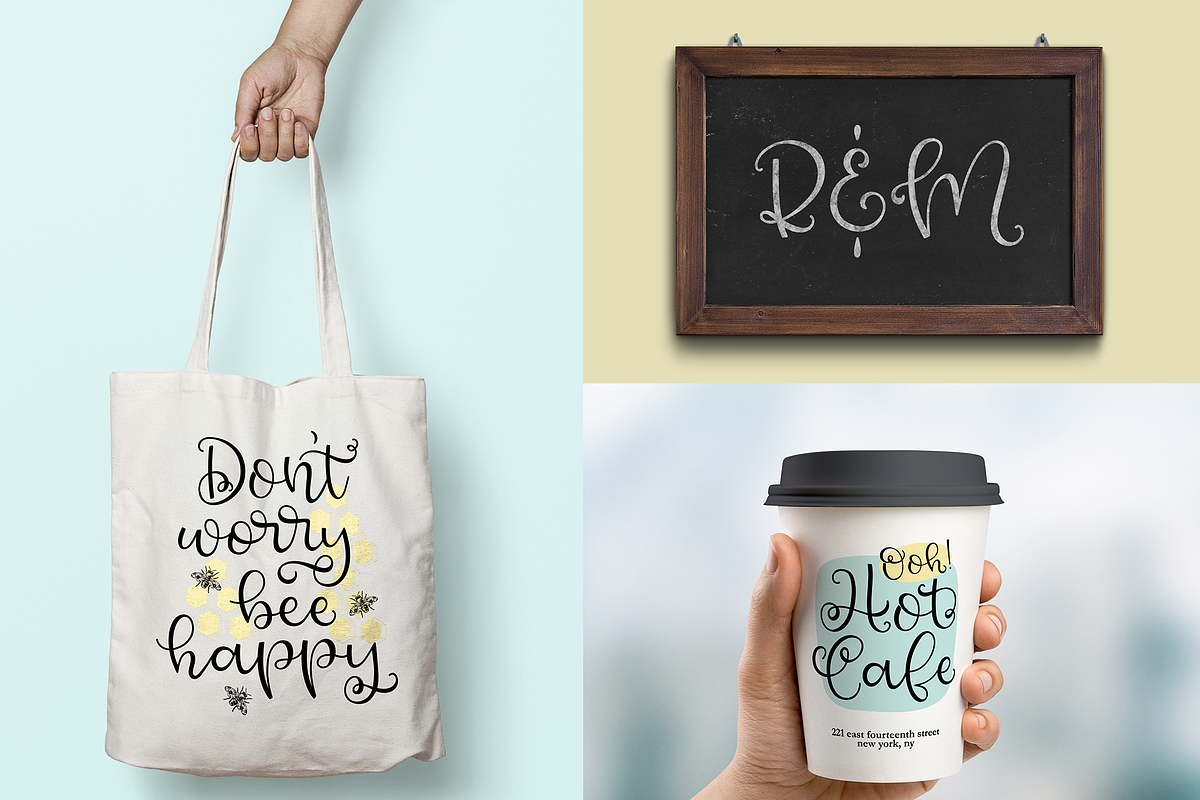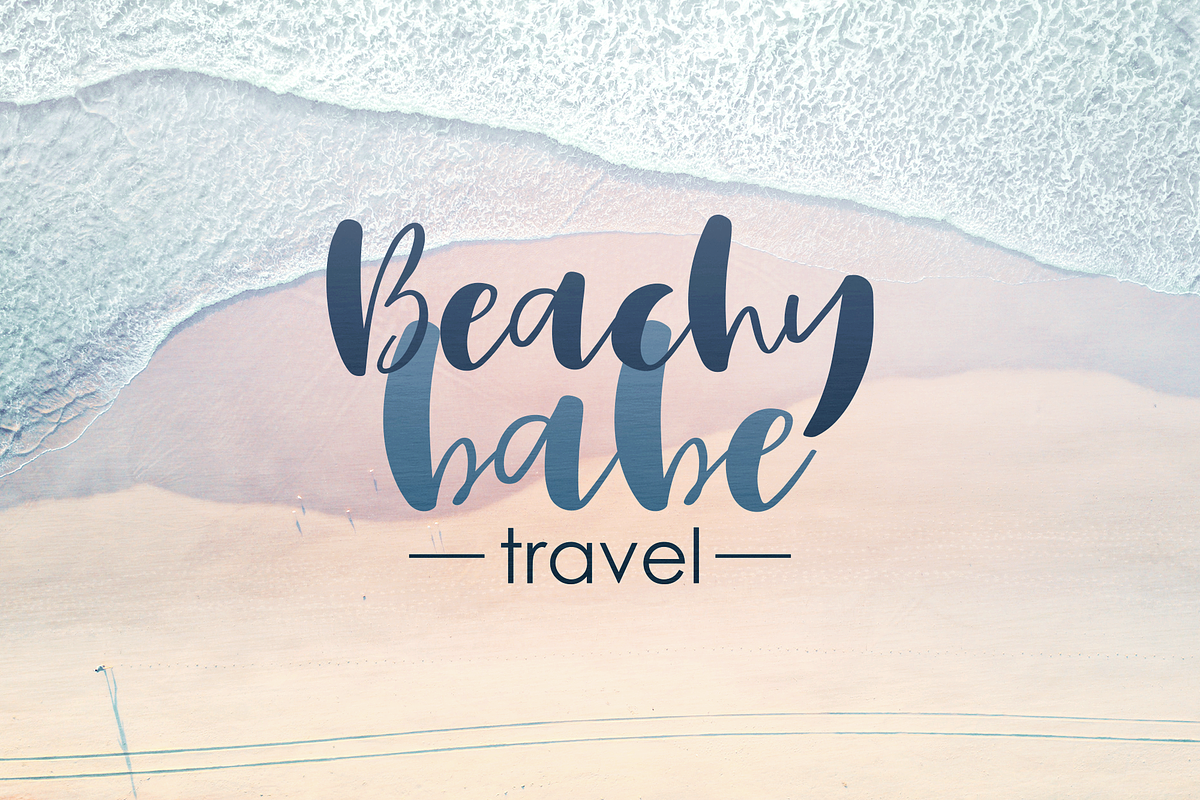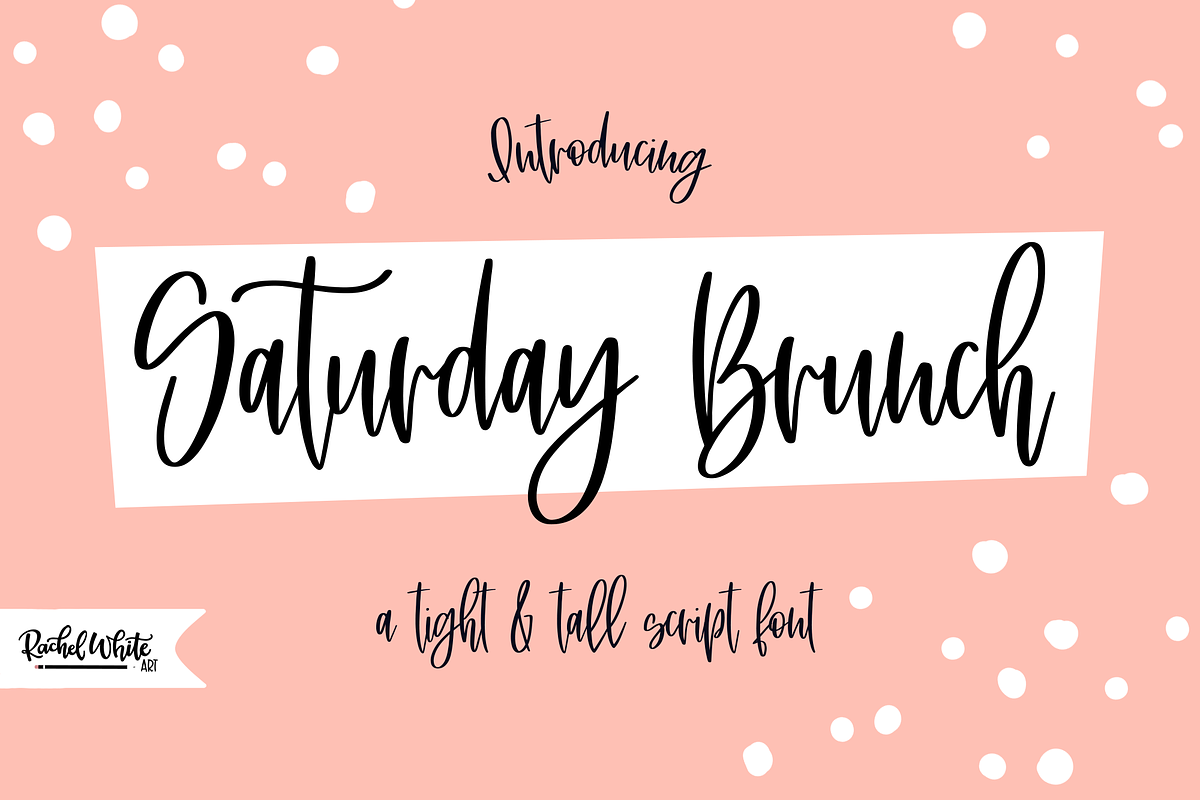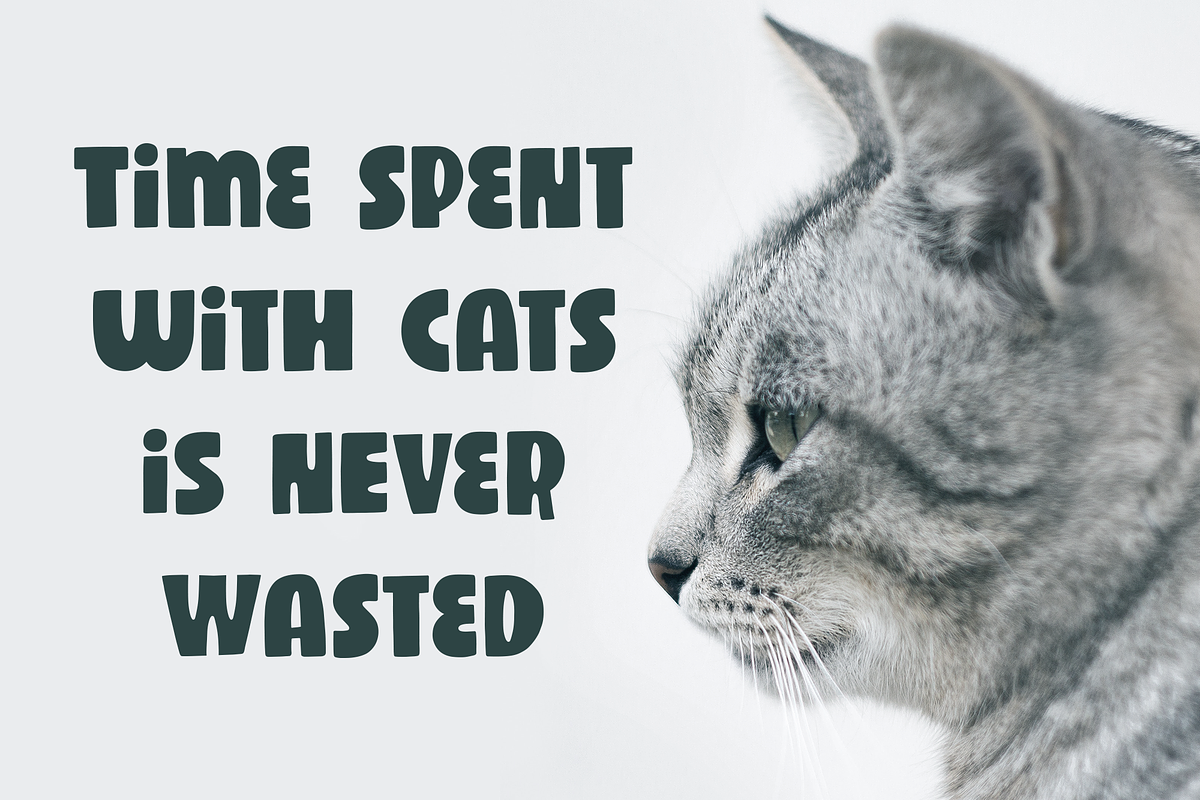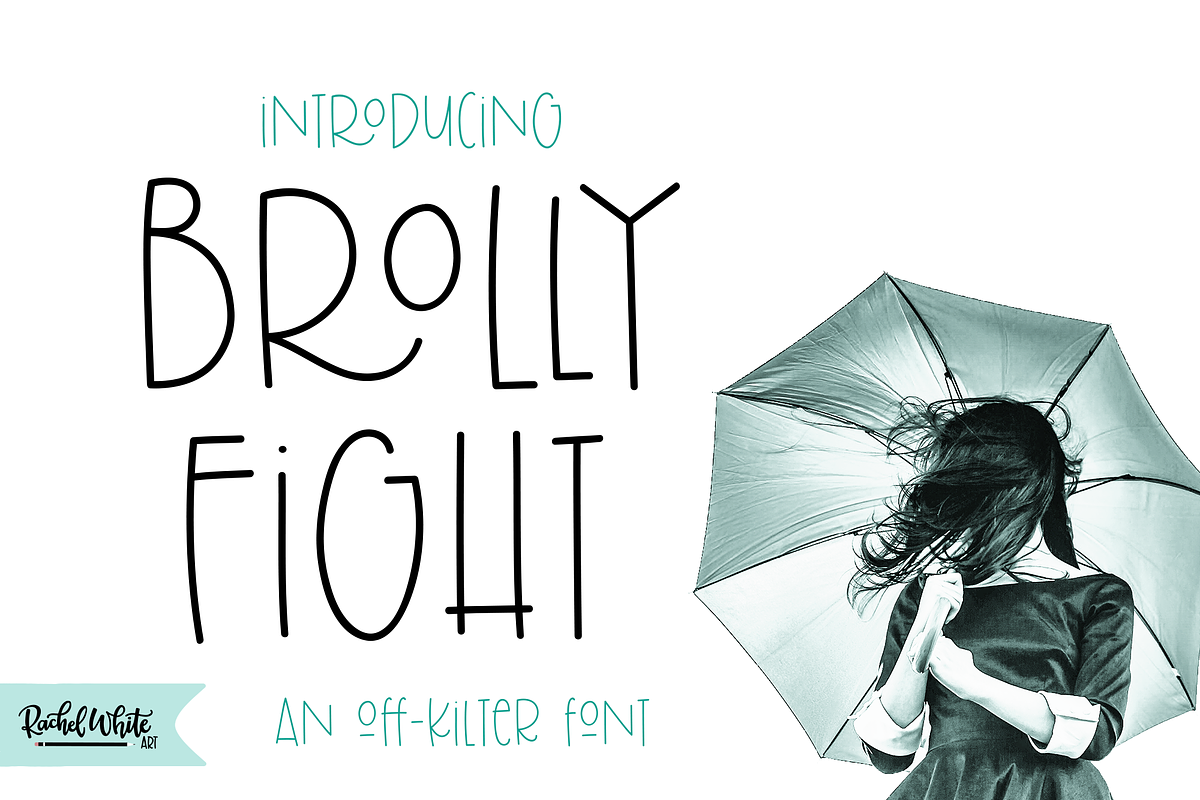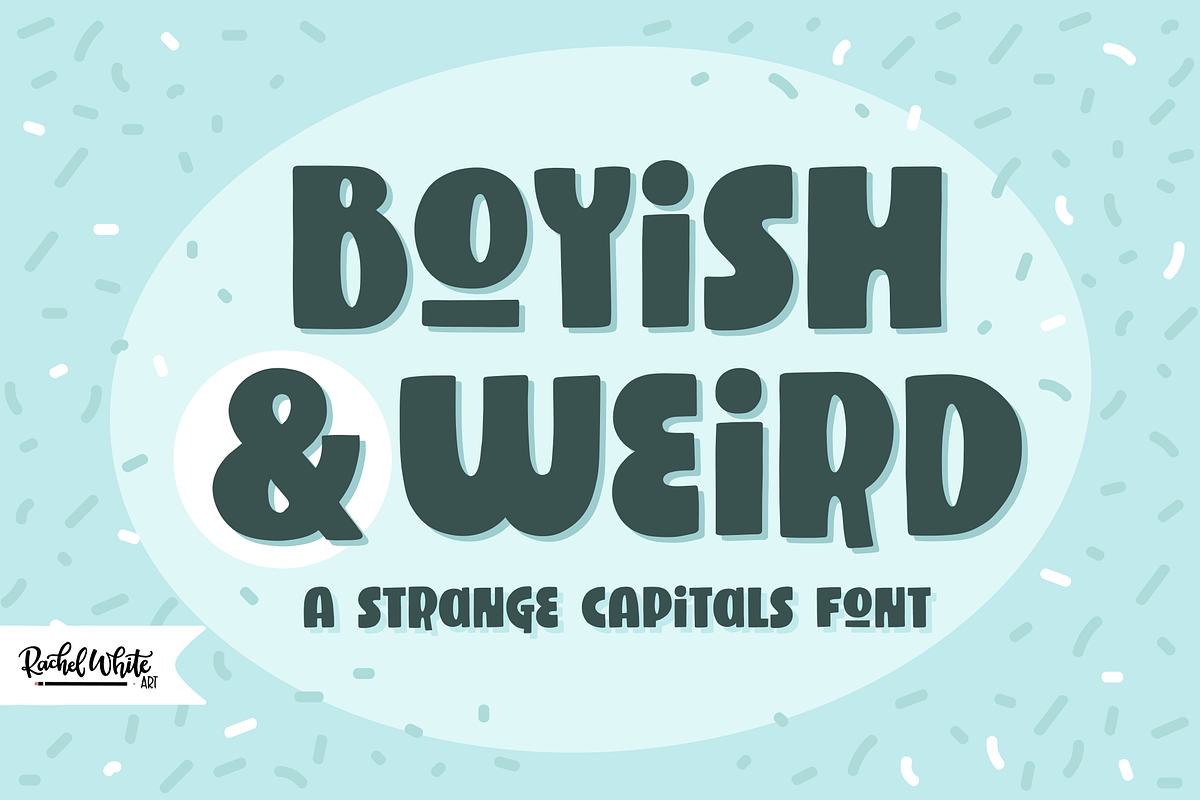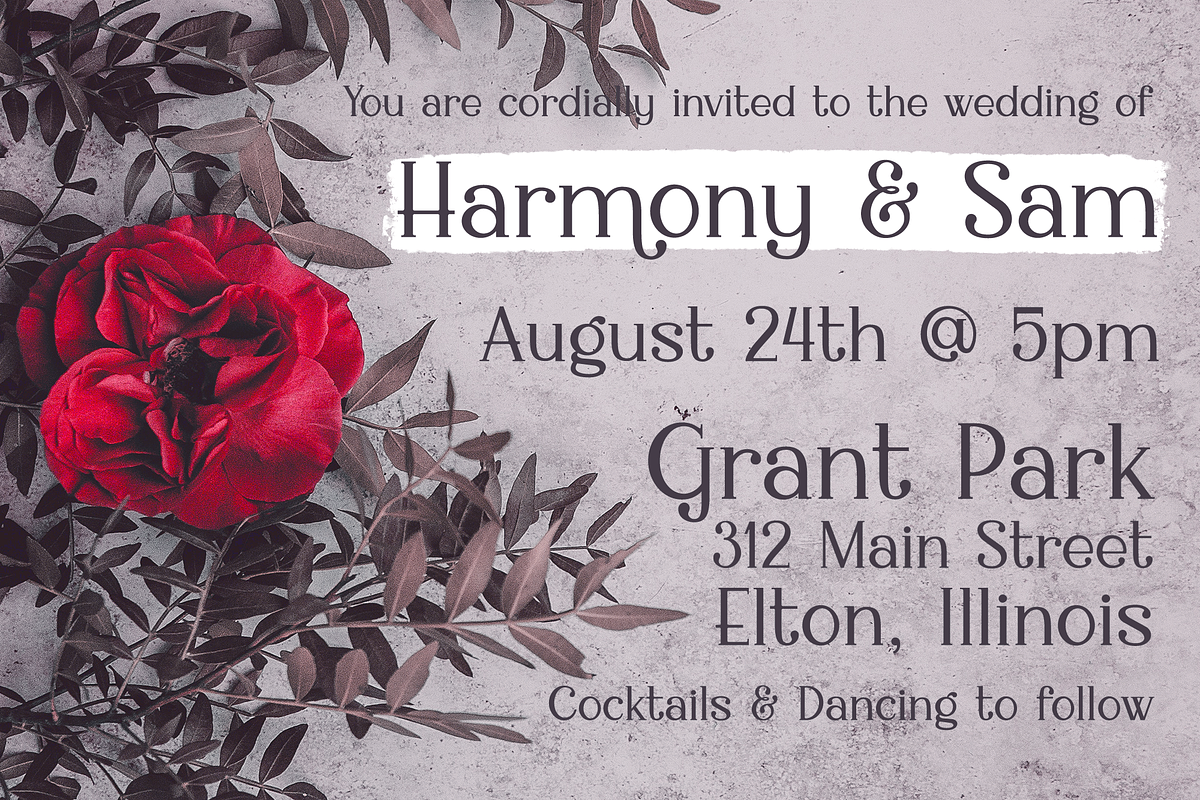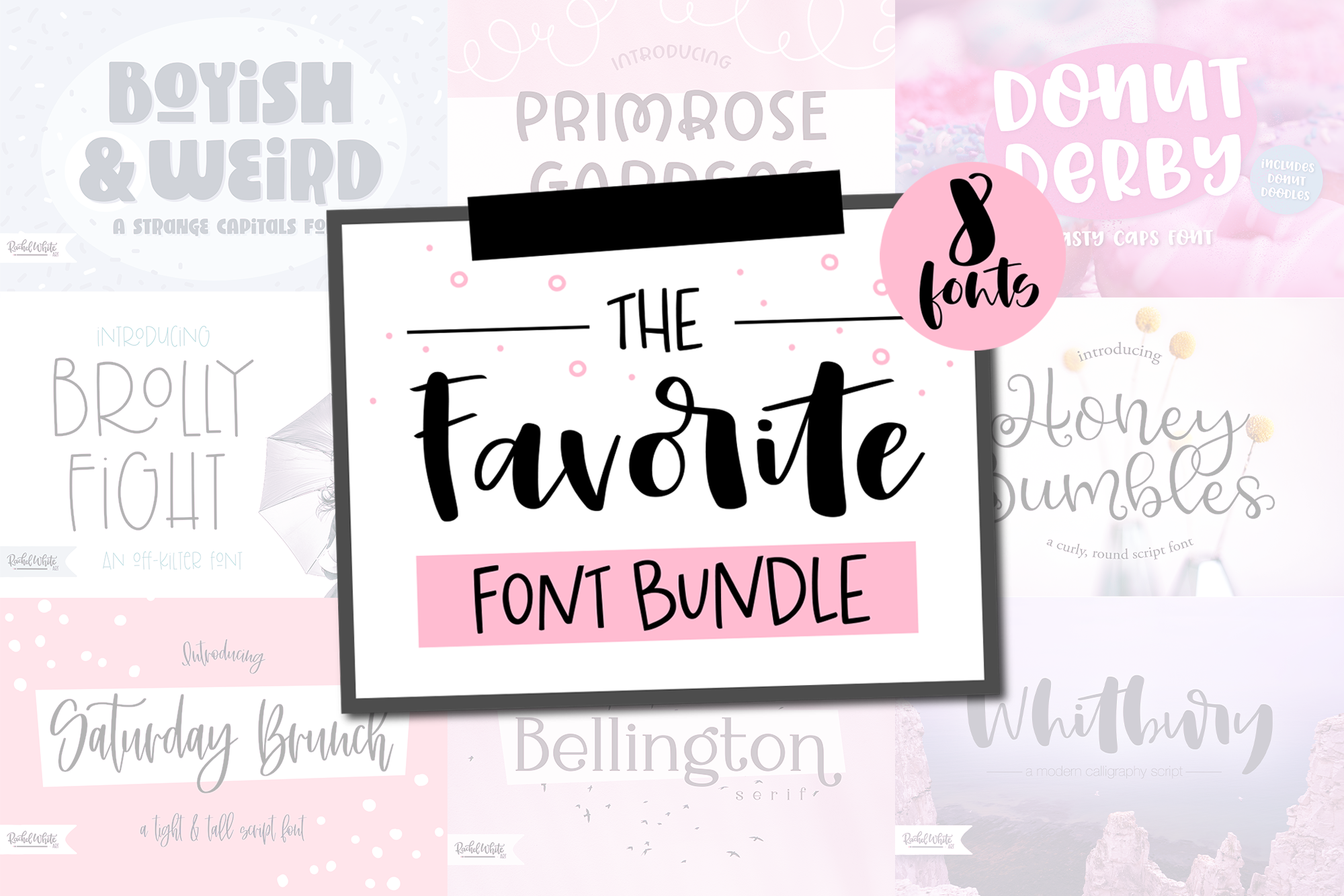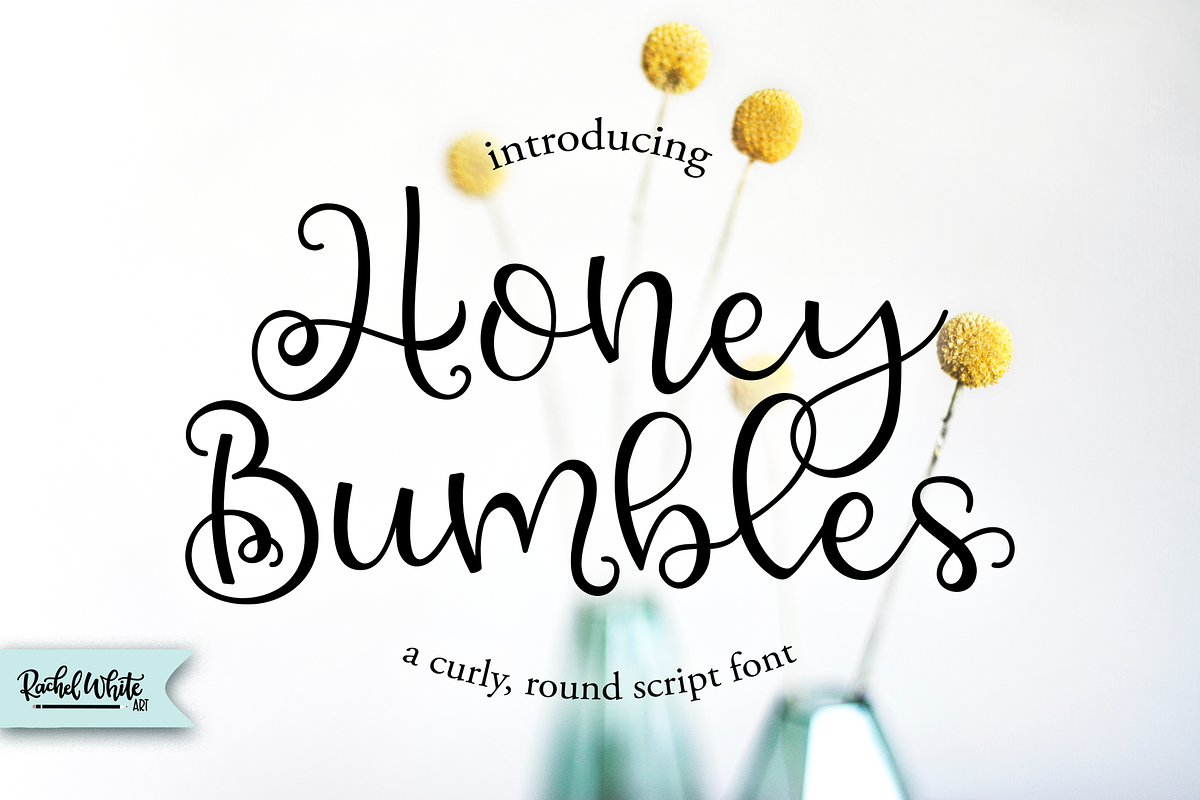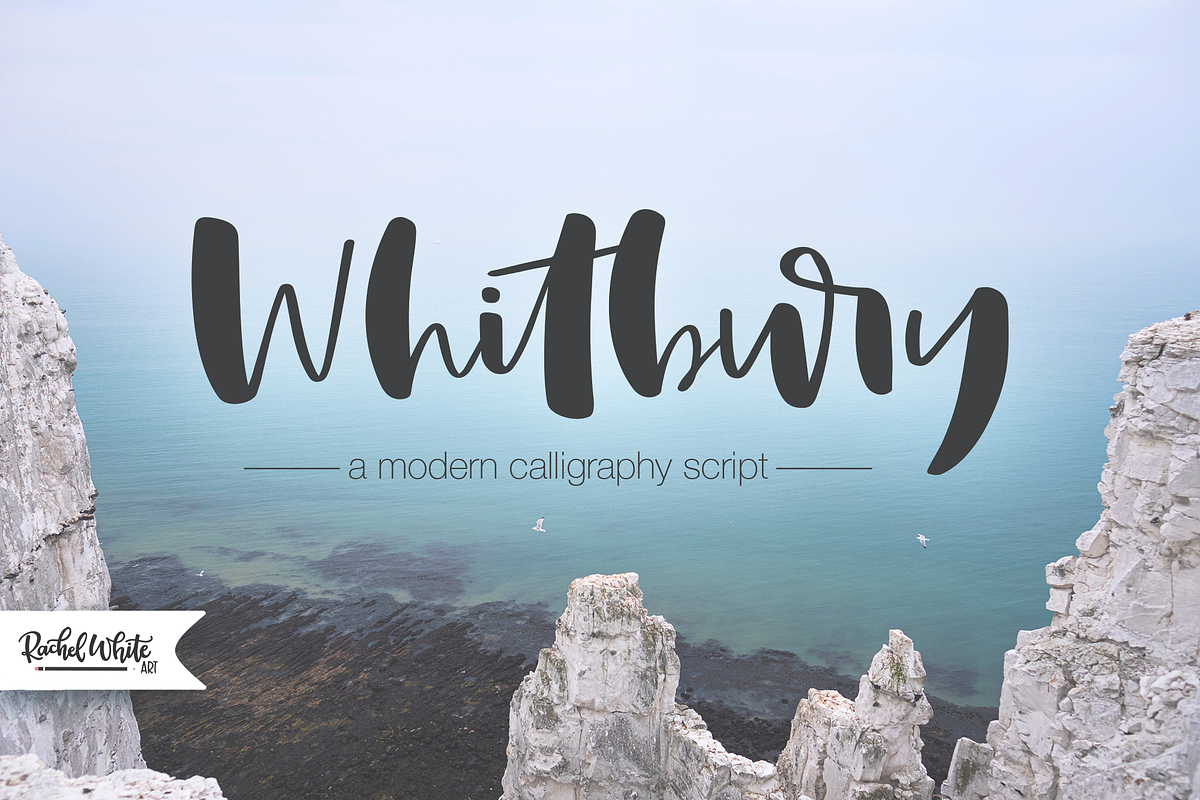
Favorite Font Bundle, 8 fonts
Introducing the Favorite Font Bundle, a carefully curated collection of 8 versatile fonts that are perfect for a wide range of creative projects. From elegant scripts to bold sans-serifs, this bundle has everything you need to create stunning designs with ease. Whether you're working on branding, logos, invitations, posters, or social media graphics, these fonts are designed to add a unique touch to your work.
Each font in the bundle has been crafted with care and precision, offering high-quality typography that will help you create professional, eye-catching designs. With a mix of classic elegance and modern flair, the fonts in this collection are perfect for any project that requires a little extra personality and style.
Transform your designs with the Favorite Font Bundle—a collection of beautiful, high-quality fonts that will bring your creative projects to life! ✨
The Favorite Fonts font bundle includes 8 of my favorites!
Includes my fonts: Boyish and Weird Primrose Garden Donut Derby Brolly Fight Honey Bumbles Saturday Brunch Bellington Whitbury
Comes with everything the fonts themselves come with - ie, the bold version of Brolly Fight, the doodles with Honey Bumbles, the donut illustrations with Donut Derby, etc.